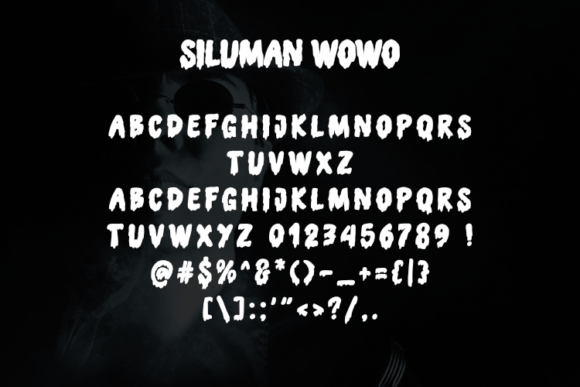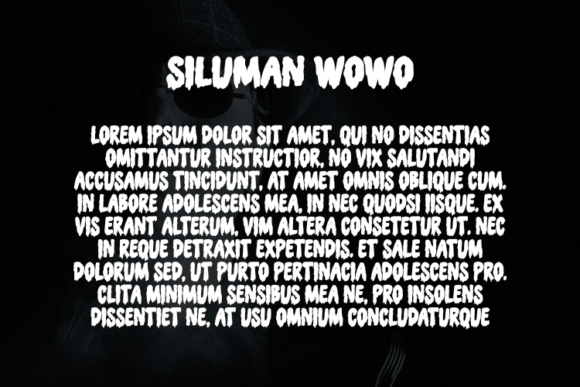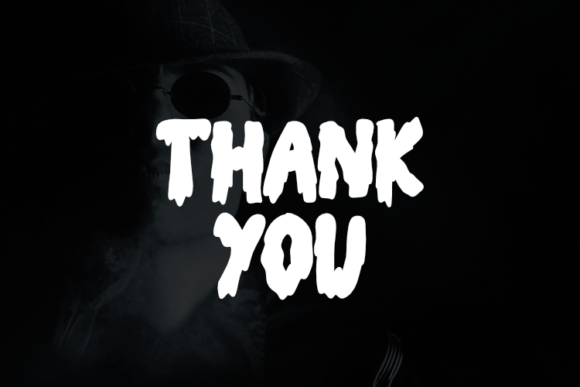
Introduction to Siluman Wowo Font
Introducing Siluman Wowo, a versatile typeface perfectly designed for fashion and product customization.
Key Features of Siluman Wowo Font
Why Choose Siluman Wowo Font?
Siluman Wowo Font offers exceptional quality and versatility, making it a valuable addition to your design toolkit. Whether you’re creating for personal projects or commercial use, Siluman Wowo Font delivers professional results.